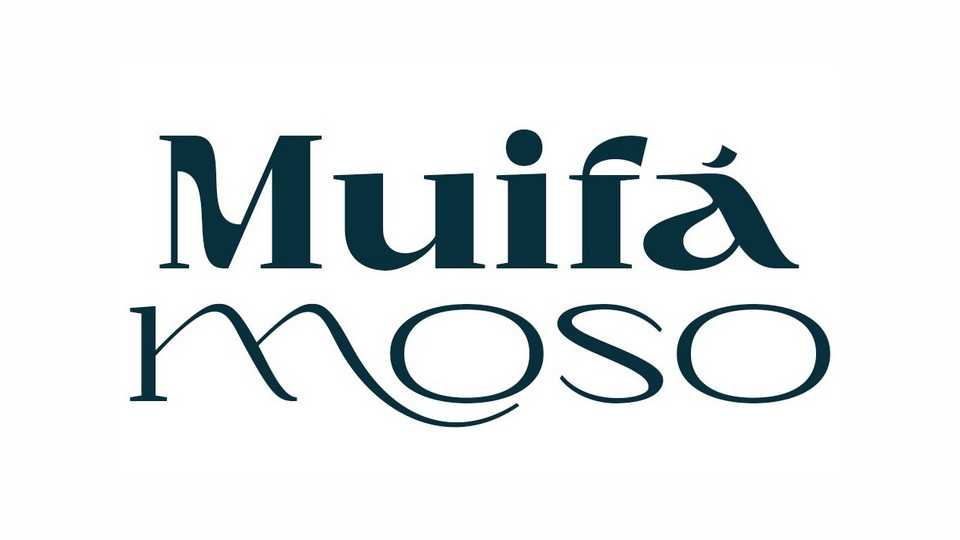
Download Muifamoso font, a serif typeface designed to become a elegant. Muifamoso brings a touch of luxury and bespoke custom typography to logos, websites, social media quotes, wedding branding, and more.
Designer: TypeClassHeroes